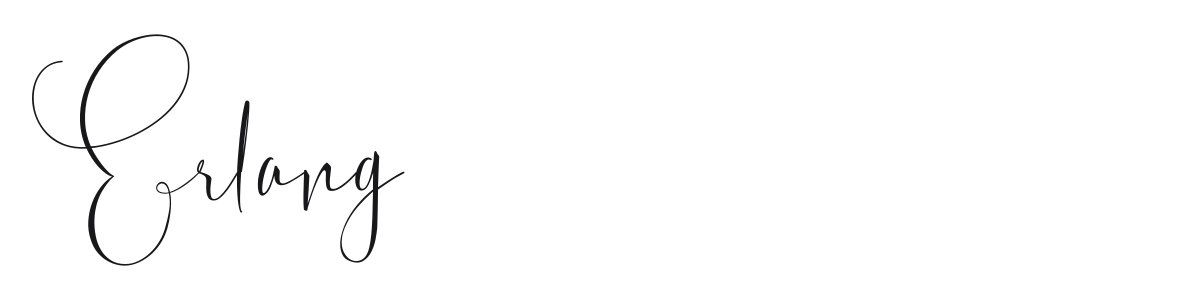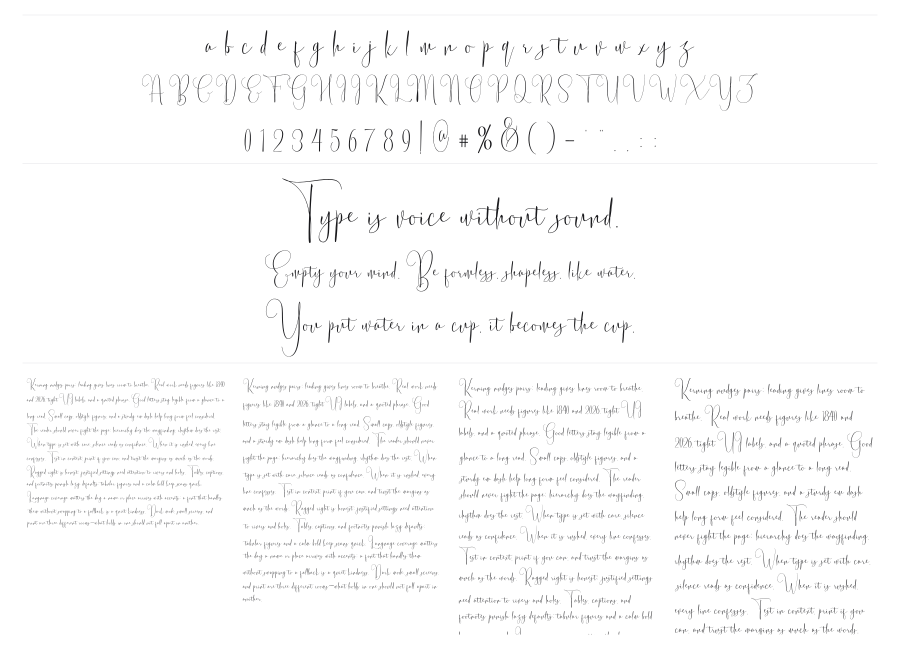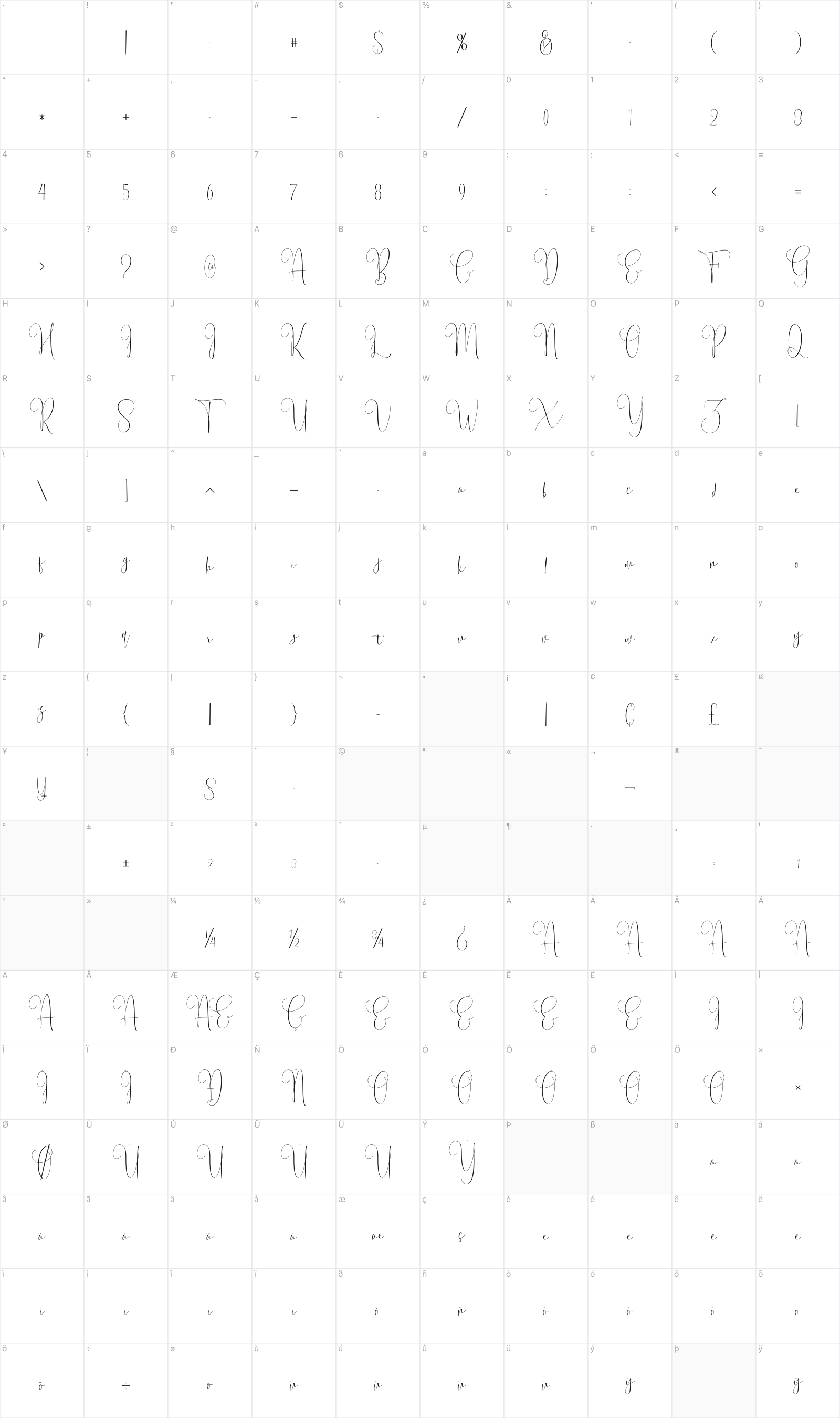
Erlang
Erlang is a flowing calligraphic script with high stroke contrast and long sweeping ascenders and descenders that give it an airy, romantic character. The design draws from copperplate tradition, with ink-thin upstrokes and confident swelling downstrokes that feel handcrafted without being casual. It suits wedding stationery, boutique branding, and editorial headers where elegance is the priority.